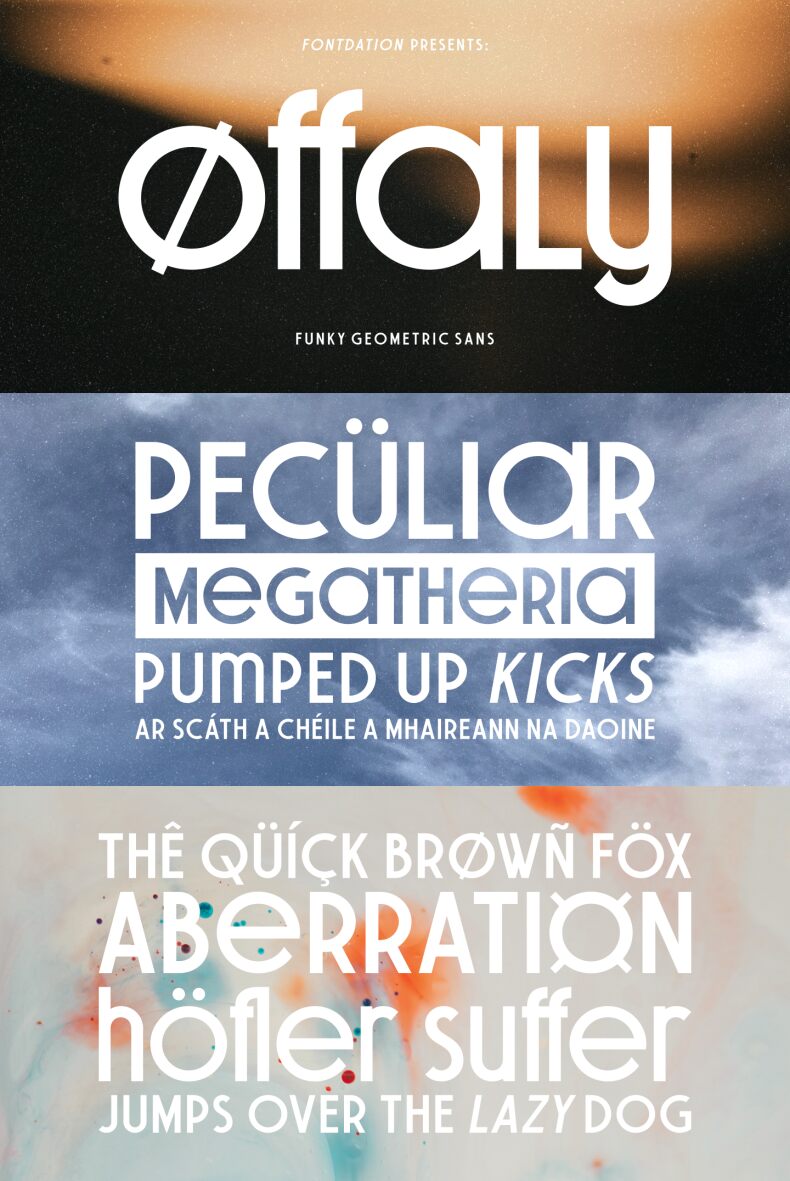
Offaly DEMO
Offaly font is a free sans serif font by Twicolabs Fontdation, designed with geometric shapes and a modern aesthetic in mind. Its minimalistic, clean design gives it a contemporary feel resulting from the balanced structure maintained throughout. This font is inspired by existing high-quality typefaces built on a similar style.
Offaly’s application potential includes logos, branding pieces, slogans, resume typography and body text of uniform point size. Packaging designs, posters, apparel fonts and webpage designing projects can also enjoy using the typeface that adds creativity alongside professional appearance to your pieces.